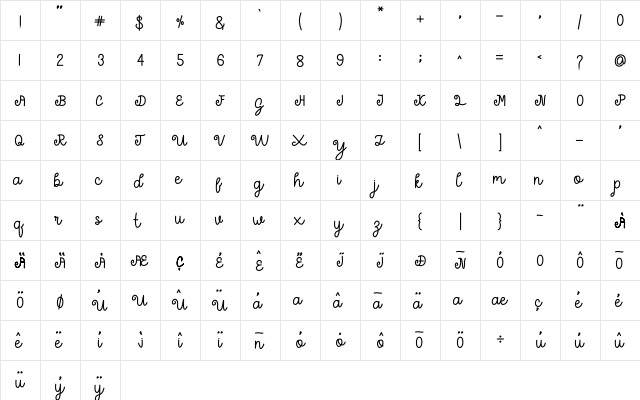
heartbeat Regular Font Preview
heartbeat Regular
heartbeat Regular Font Details
| Foundry | Creative LAB |
Design Context for heartbeat Typeface
heartbeat is a composed and adaptable typeface that performs quietly and consistently across a wide range of design contexts.